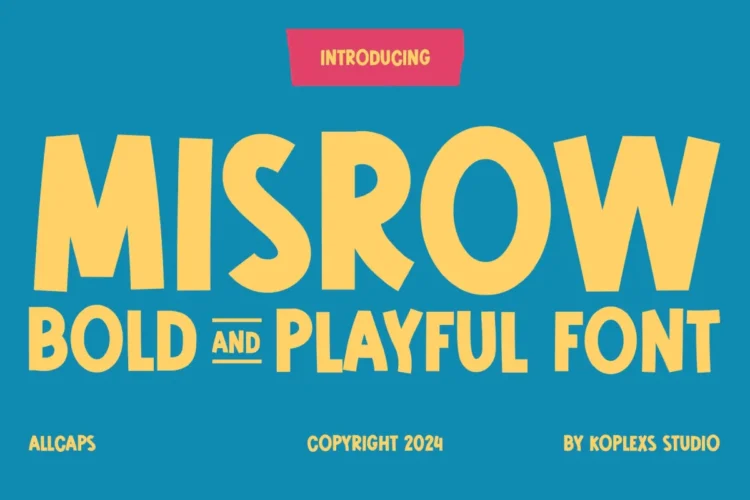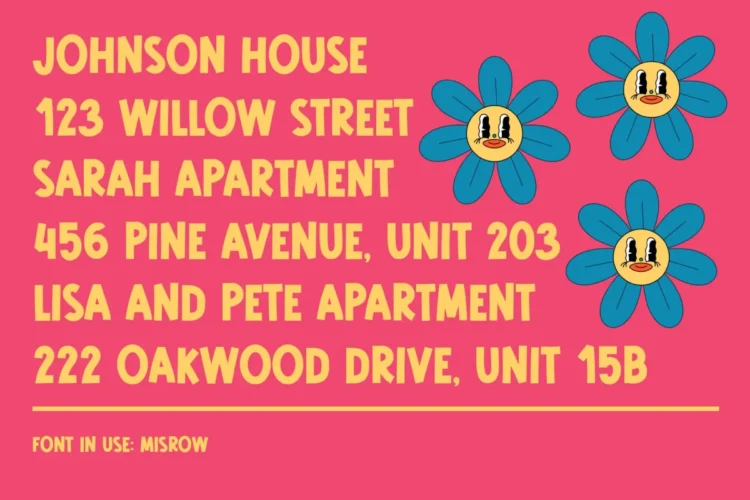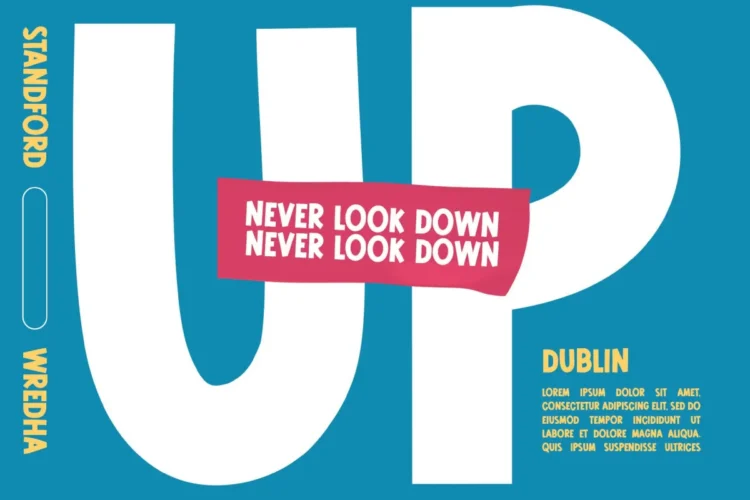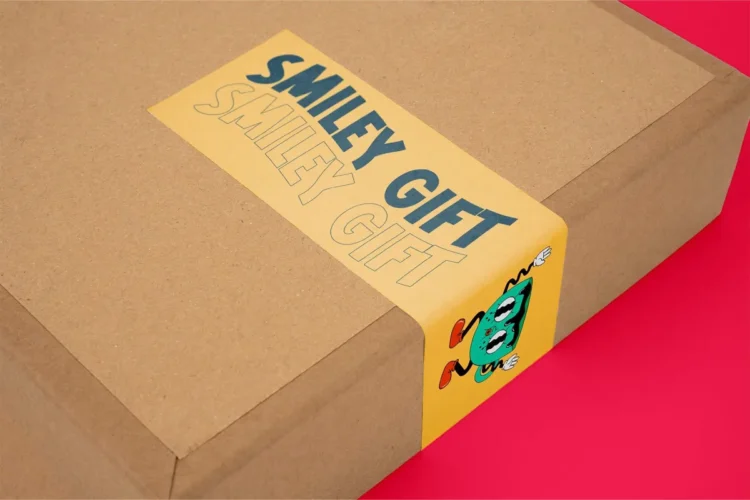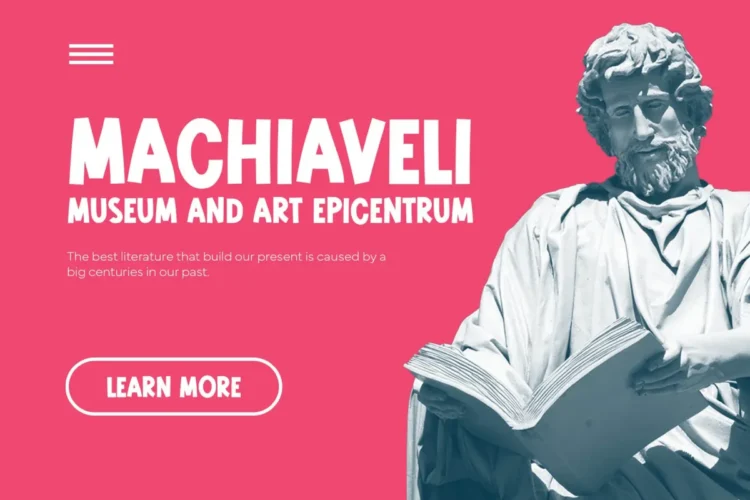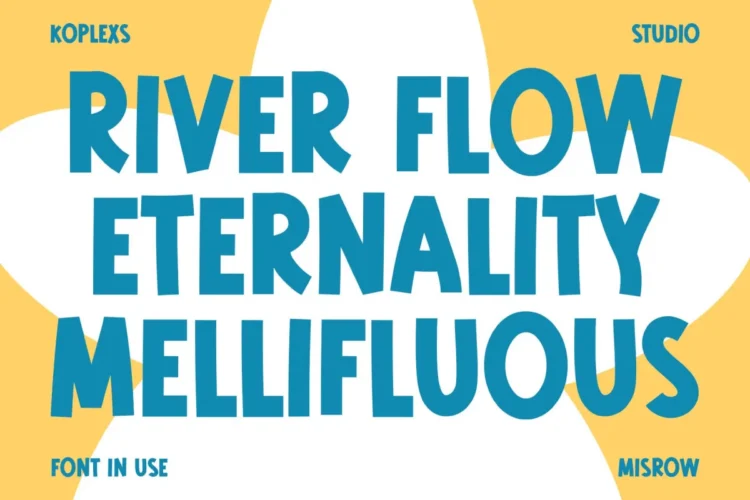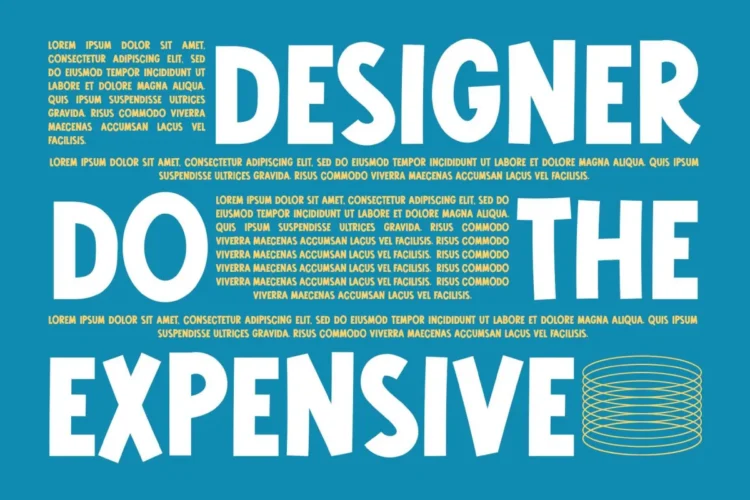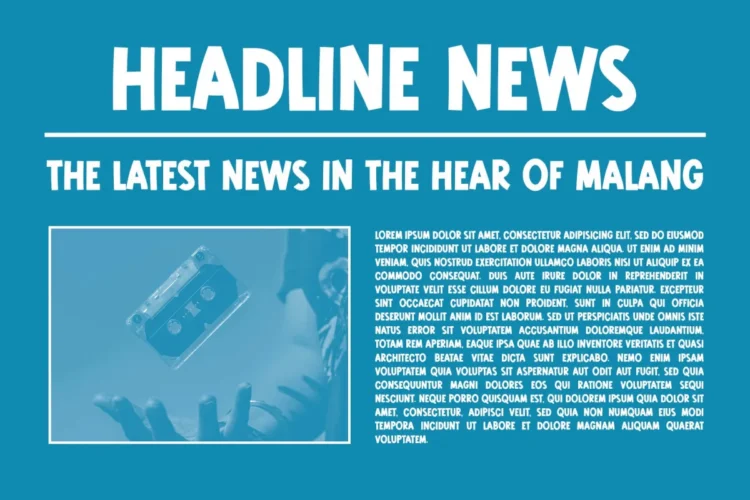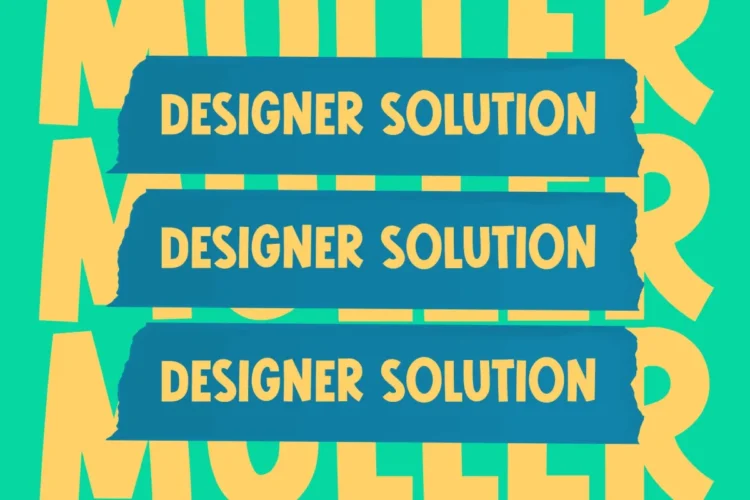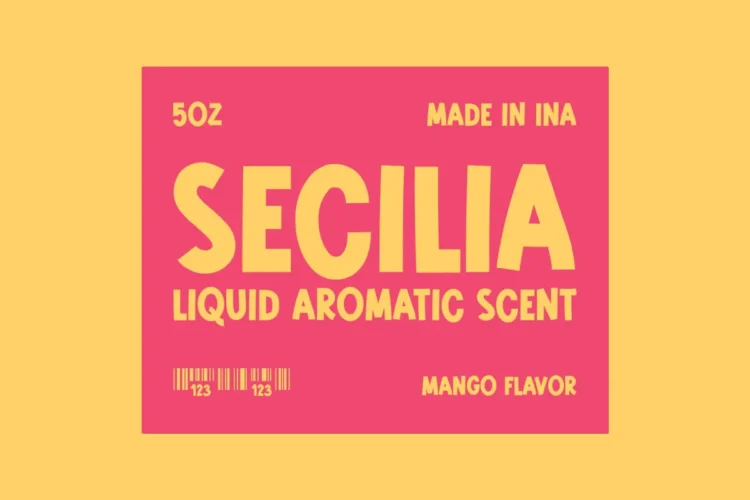
Misrow Font – Bold, Playful & Fancy Display Font for Fun Creative Projects
Misrow Font is a bold display font that exudes charm, creativity, and personality. Crafted with a playful font aesthetic and fancy font bold shapes, Misrow brings life and energy to any design it touches. Its slightly quirky letterforms and rounded edges make it a delightful choice for creative professionals and brands that dare to stand out.
Misrow Font is versatile and works beautifully for :
- Logo design and branding
- Children’s book covers and educational materials
- Posters and event promotions
- Packaging design and product labels
- Social media graphics and quotes
💛 Misrow Font Features:
- Uppercase (ALL CAPS) characters
- Strong, geometric yet friendly structure
- Balanced legibility for print and digital use
- Unique handcrafted feel
🧠 Why Choose Misrow Font:
This display font blends bold confidence with playful creativity, making it perfect for both modern and retro-style projects. The fancy font details give it a distinctive visual rhythm, helping your designs stay memorable and engaging.
Whether you’re working on marketing campaigns, artistic merchandise, or editorial layouts, Misrow Font ensures your text captures attention and sparks joy.
Bring your ideas to life with Misrow Font — the perfect blend of boldness and playfulness.